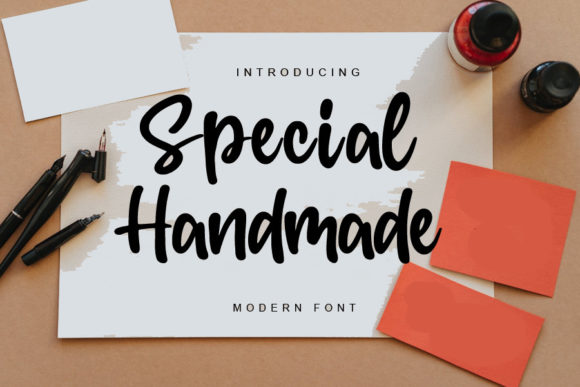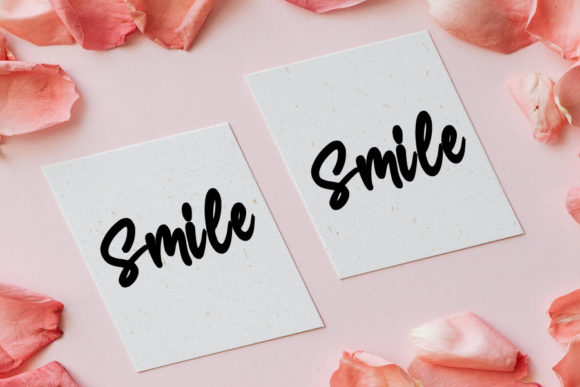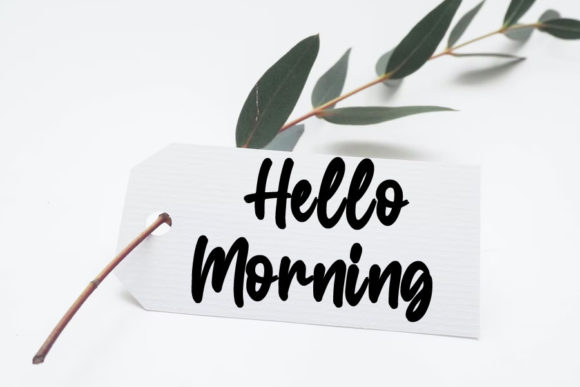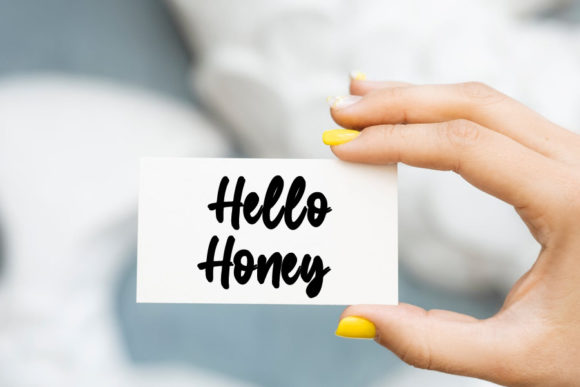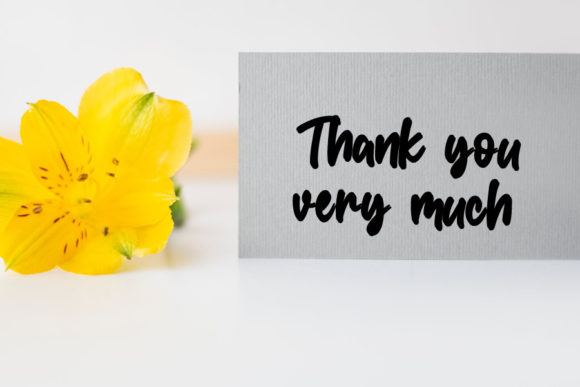
Special Handmade Font
About Special Handmade Font
Special Handmade is a chic and stylish script font. It looks both distinct and fashionable and it is the most ideal choice for various creations. This original look will appeal to a wide range of crafty ideas, from letterheads and titles, to stationery.